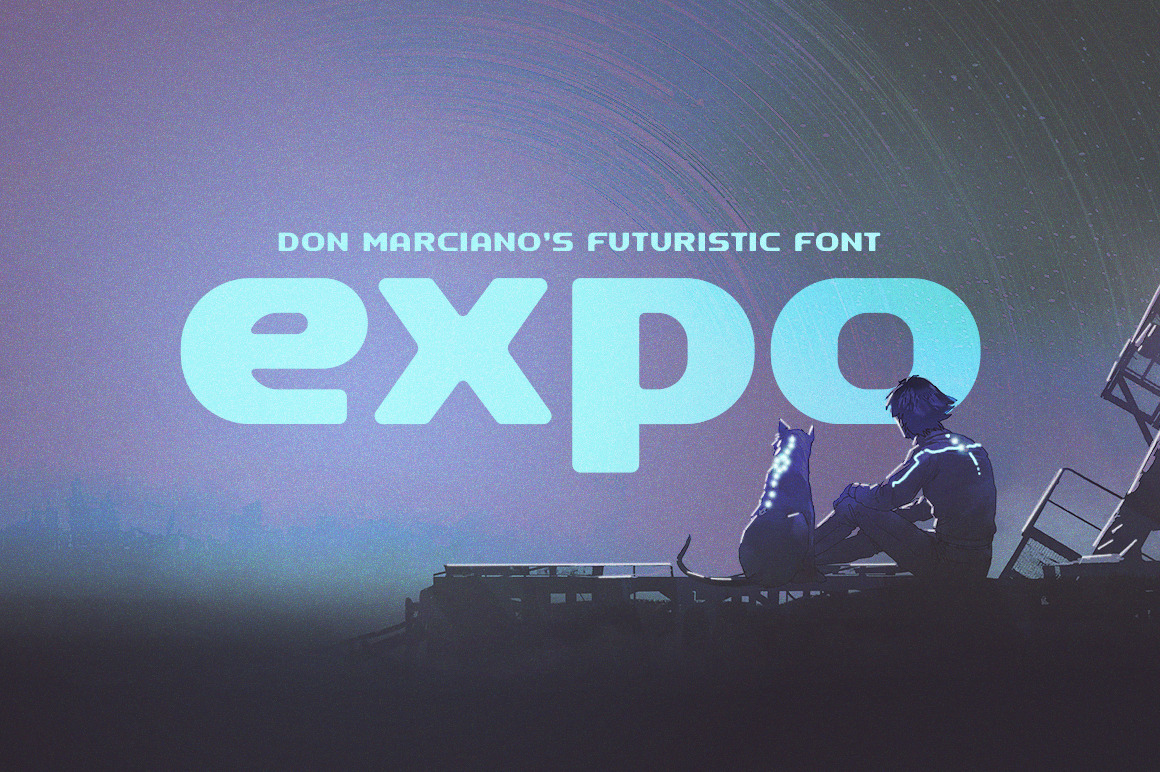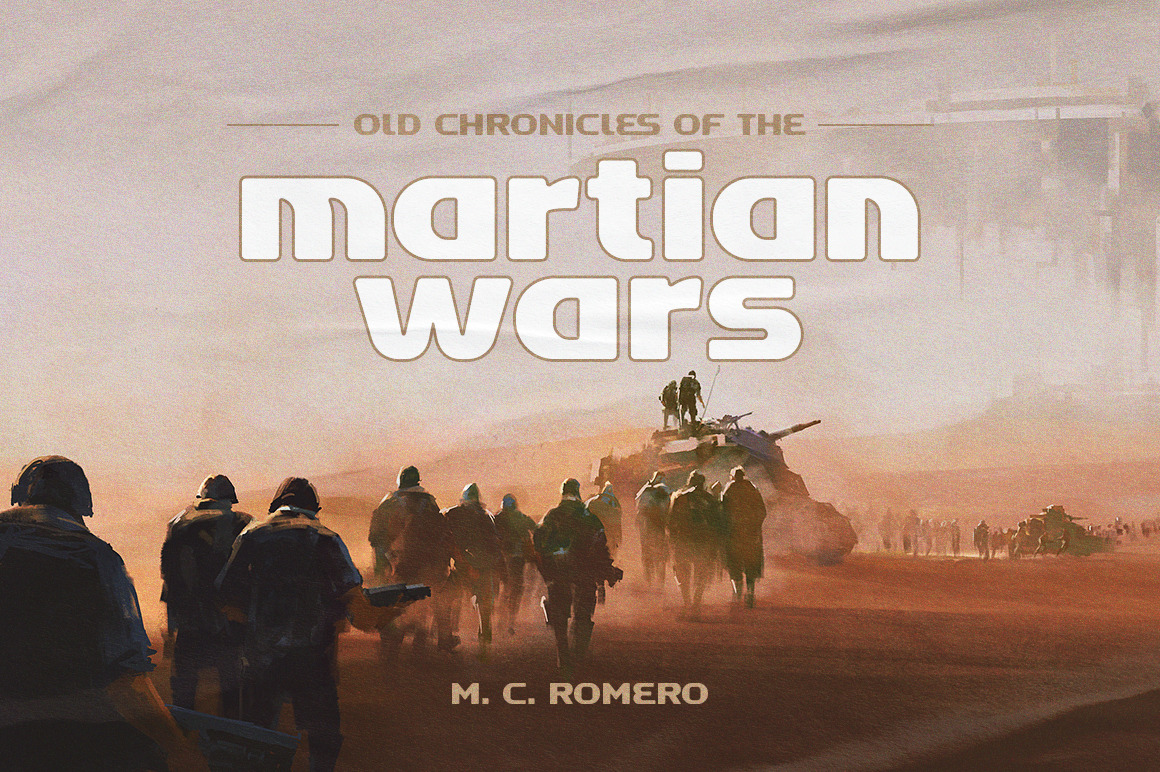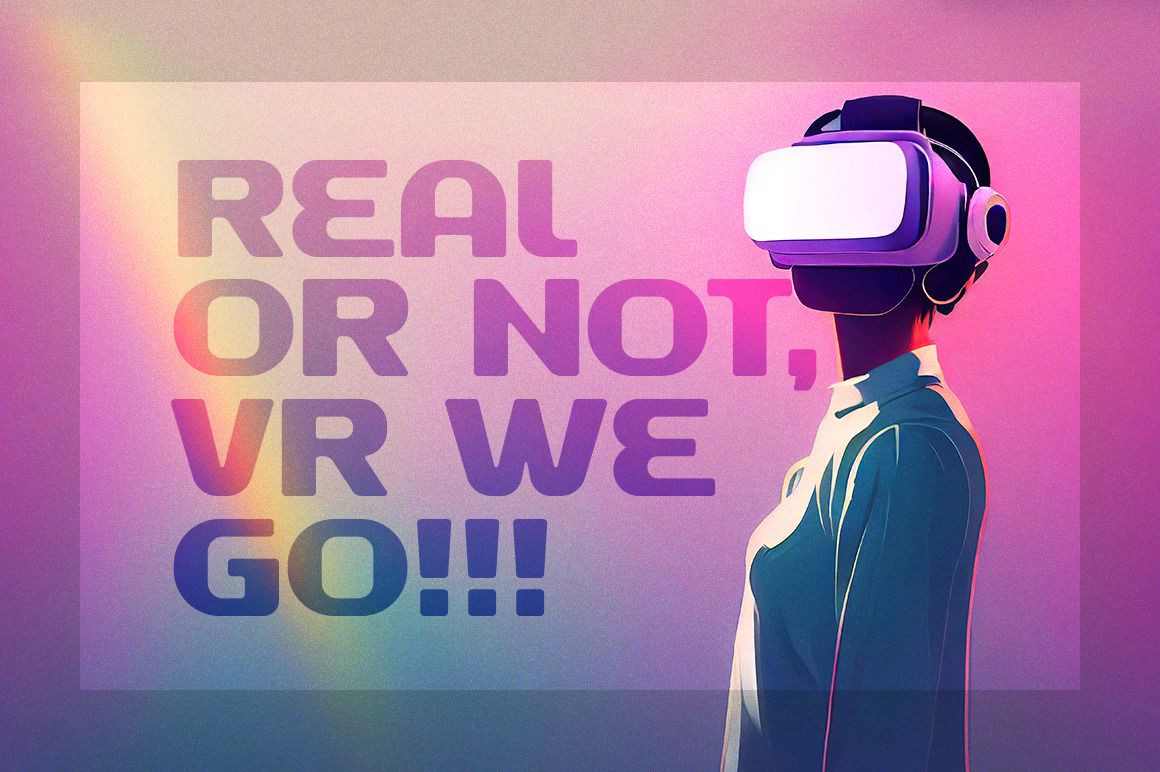
Expo Font
Expo is a futuristic sci-fi display font created with a fluid rounded style to evoke a retro aesthetic in a modern feel, the typeface goal is to modernize the retro trend with a fresh take. The file includes upper and lower case characters, standard punctuation, and international characters for multi-language support features to help you reach your creative goals.